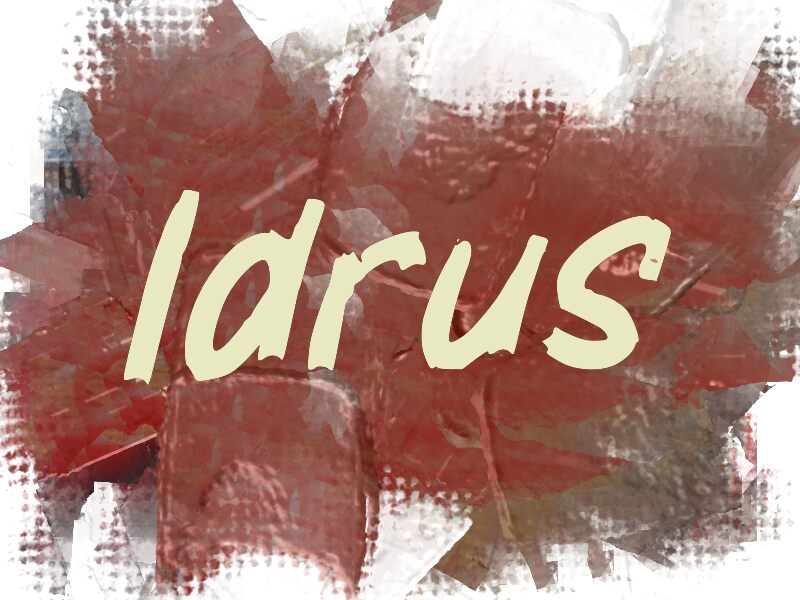
Idrus
Idrus font by wep is a free handwritten font given a brush style and an expressive look. This makes the font casual, with a bit of modern touch and the textured appearance common from brush graphics.
Idrus can be used in posters, flyers, and business cards. Then there are invitations of all sorts including wedding invitations for couples wanting to get unusual styles and elegant presentation at their occasions. Try it in magazines, websites, greeting cards, logos etc.